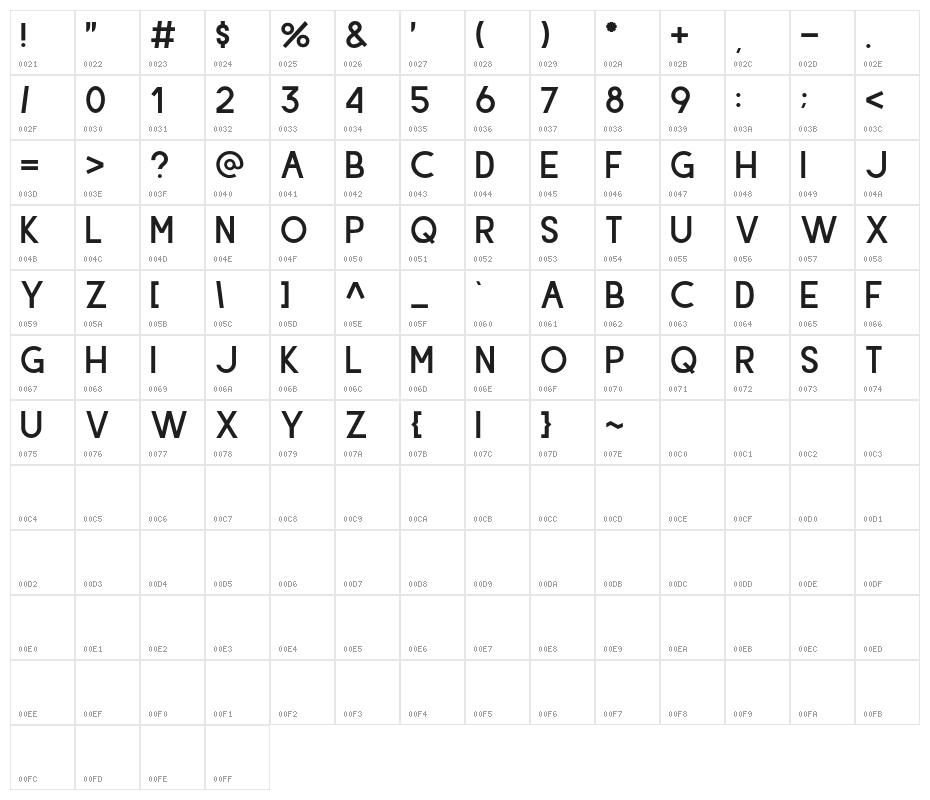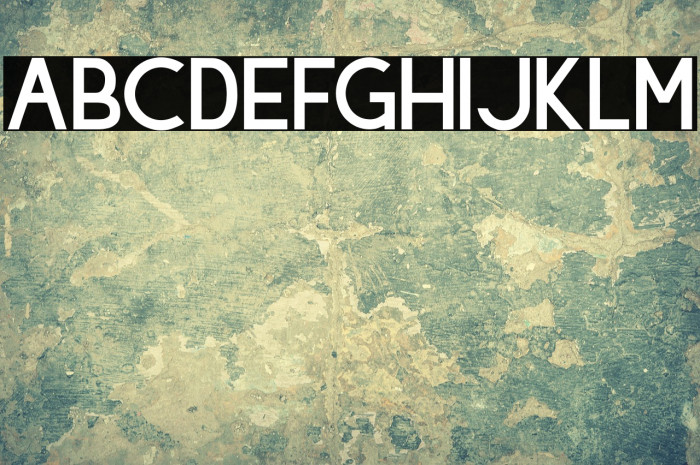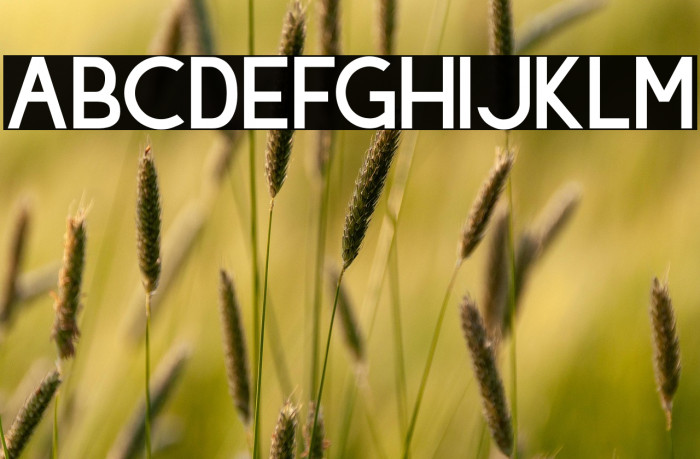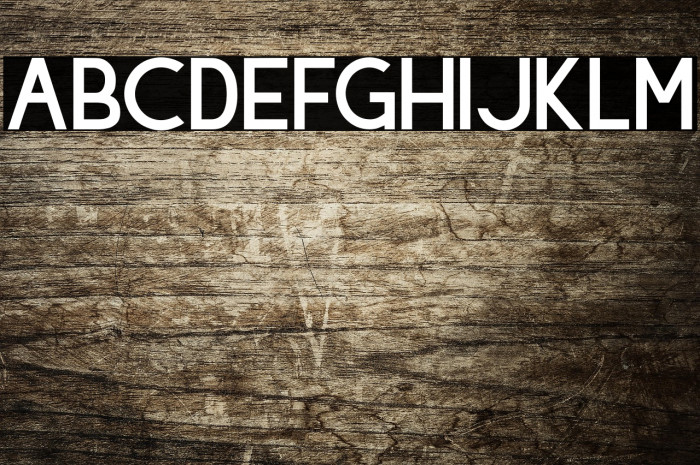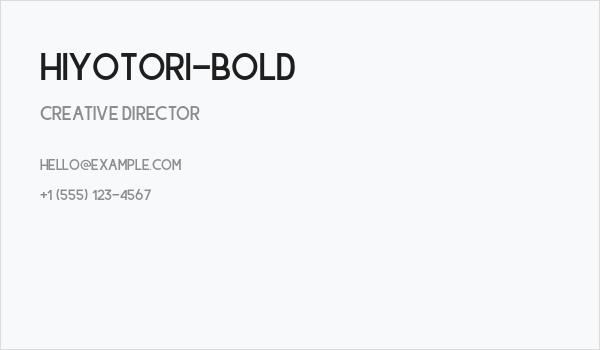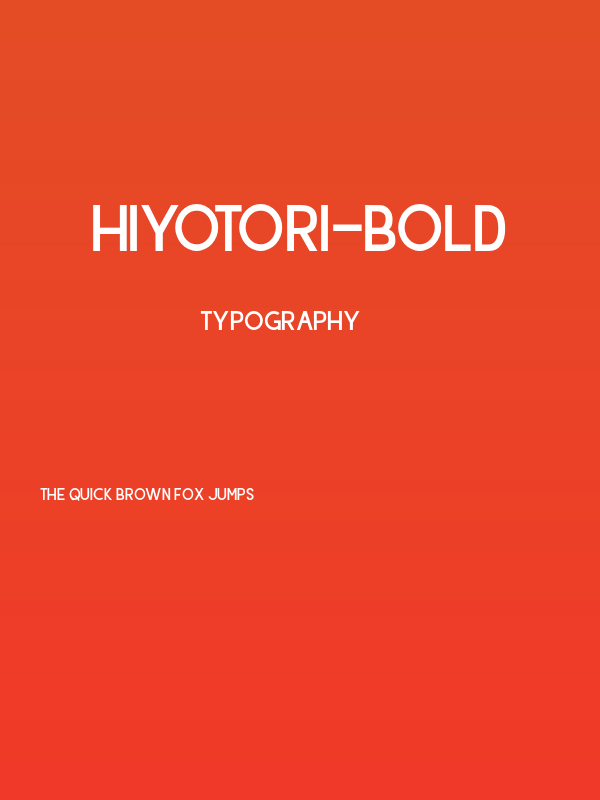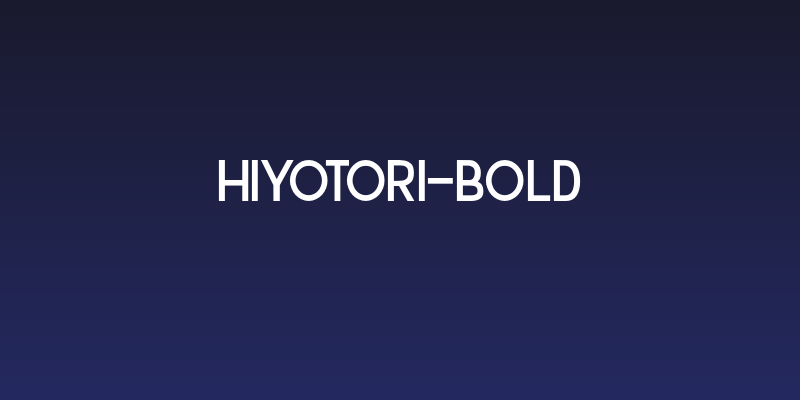
Hiyotori-Bold Font
Hiyotori-Bold Description
This font features a bold and clean sans-serif style with uniform stroke widths, providing a modern and professional appearance. The characters are well-defined with a geometric structure, offering excellent readability. The uppercase and lowercase letters maintain a consistent height and width, contributing to a balanced and harmonious look. The numerals are clear and distinct, making them suitable for various applications. Special characters are included, enhancing the font's versatility for different design needs.
Use CaseHeadlines, Logos, Digital interfaces
Proposed ProjectsIdeal for branding, advertising, headlines, and digital interfaces where clarity and impact are essential.